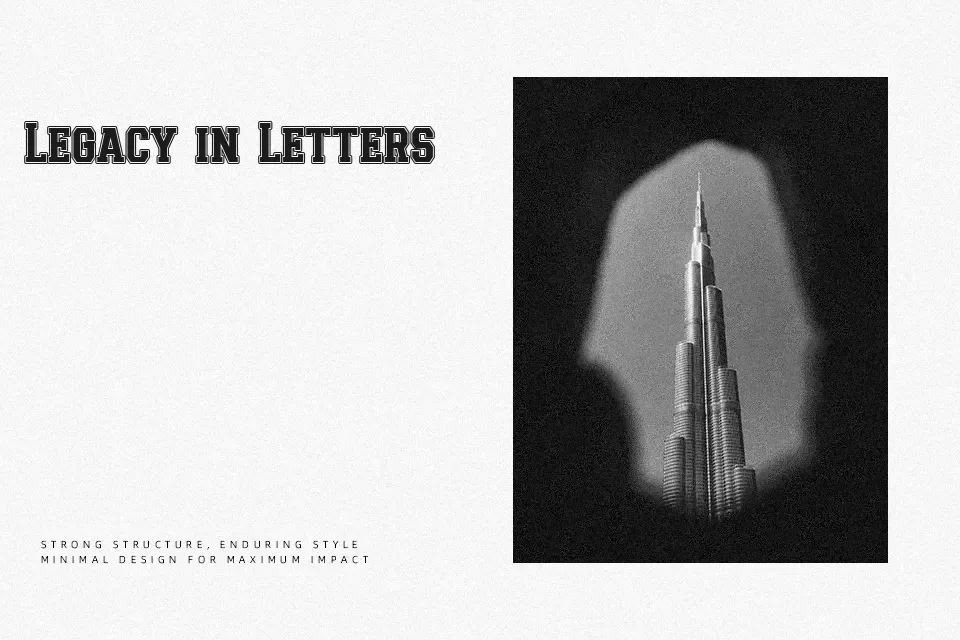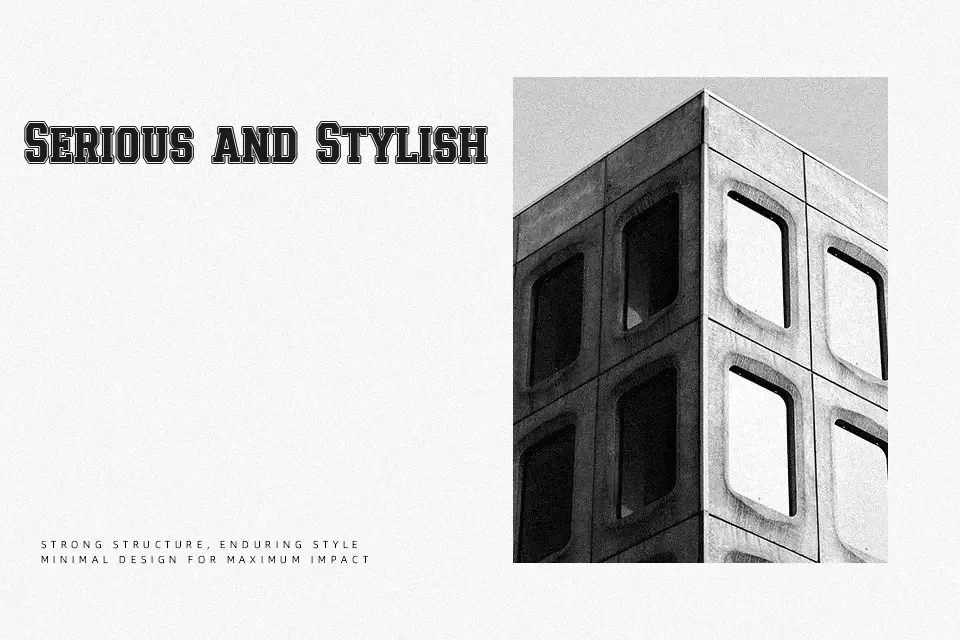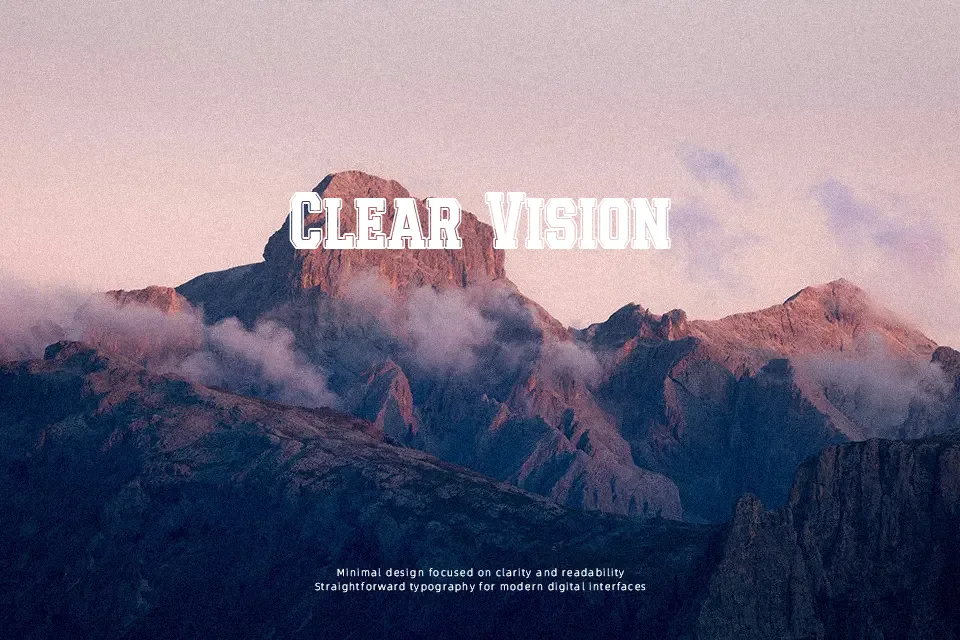
Chicago Athletic Slab Serif Font
Designed by Blankids
Chicago Athletic Slab Serif Font features thick block serifs, geometric outer contours, and uniform stroke weight across its uppercase character set. The letterforms display tight tracking and squarish geometric counters that create an authoritative, collegiate appearance in prominent display environments. Because the bold stems and minimal internal whitespace are optimized for punchy headlines, the typeface commands immediate attention on stadium banners, team jerseys, and event flyers. However, the dense structural weight and limited stroke contrast make the design less suitable for continuous body text or small interface labels. In headline settings, the balanced letter spacing maintains crisp silhouette recognition across distant viewing distances.
Best For: sports apparel graphics, collegiate event posters, athletic team logos, stadium headline banners
Not Ideal For: continuous body text, small interface labels, dense editorial paragraphs, legal documentation